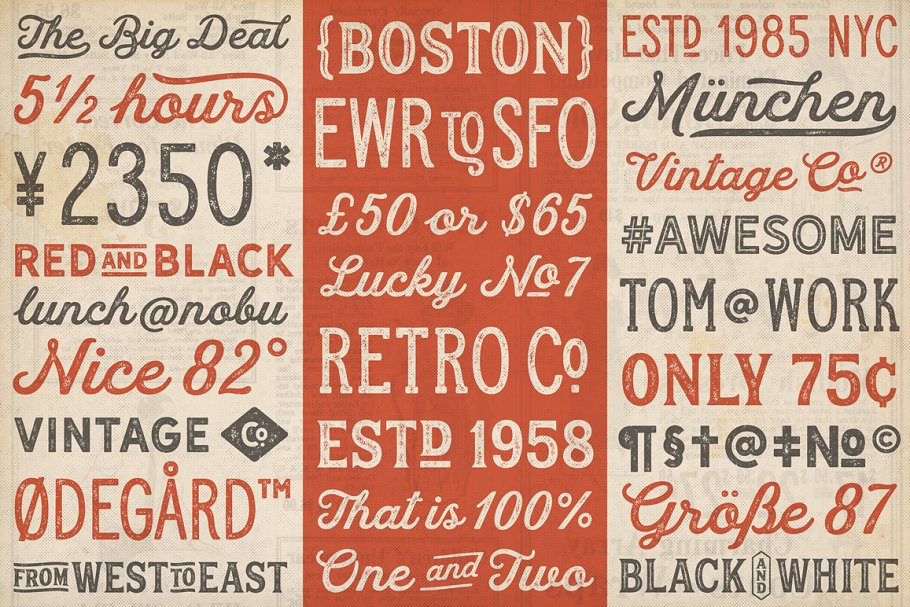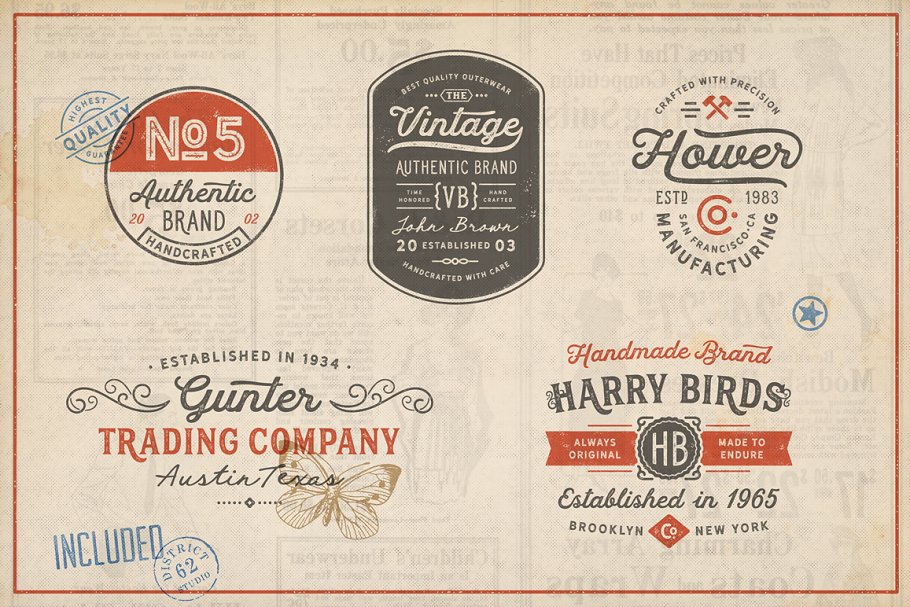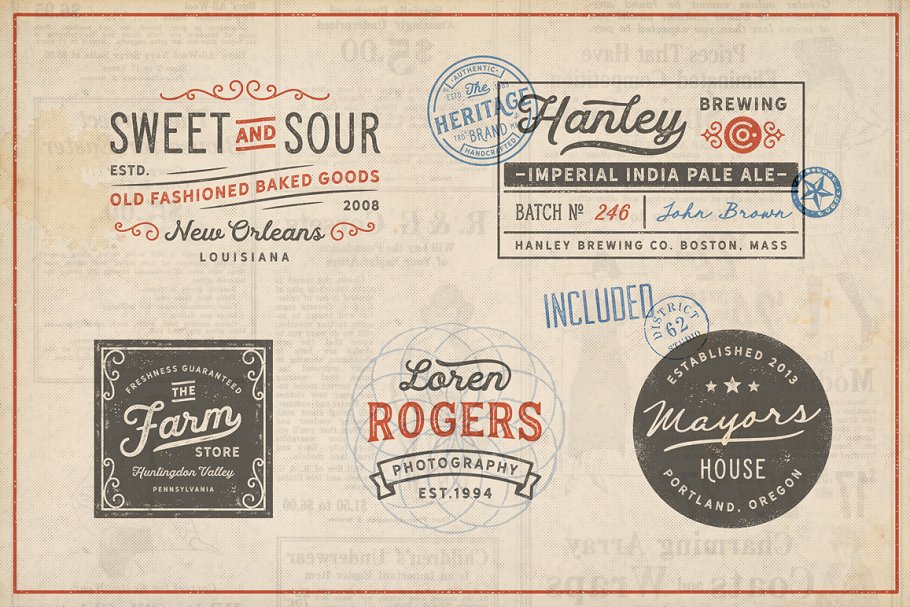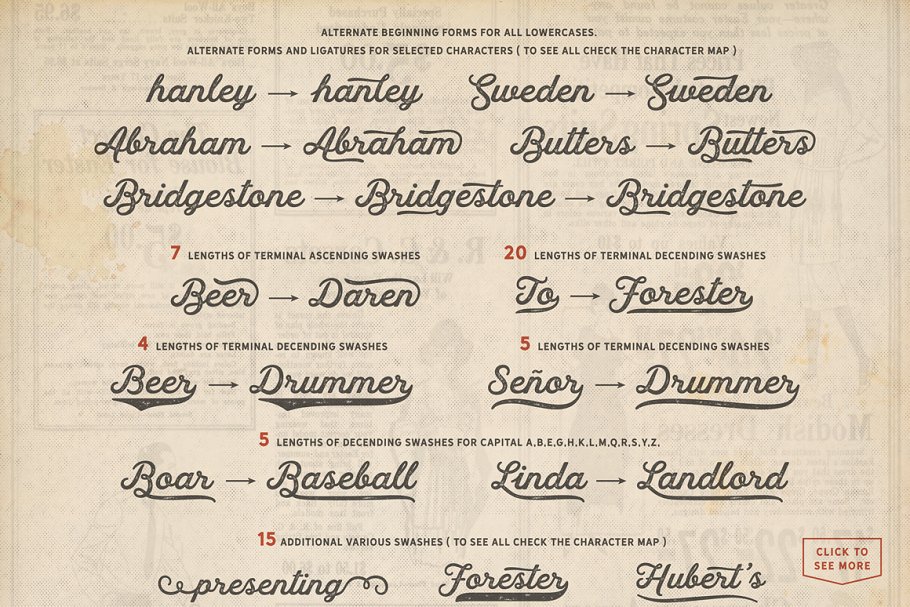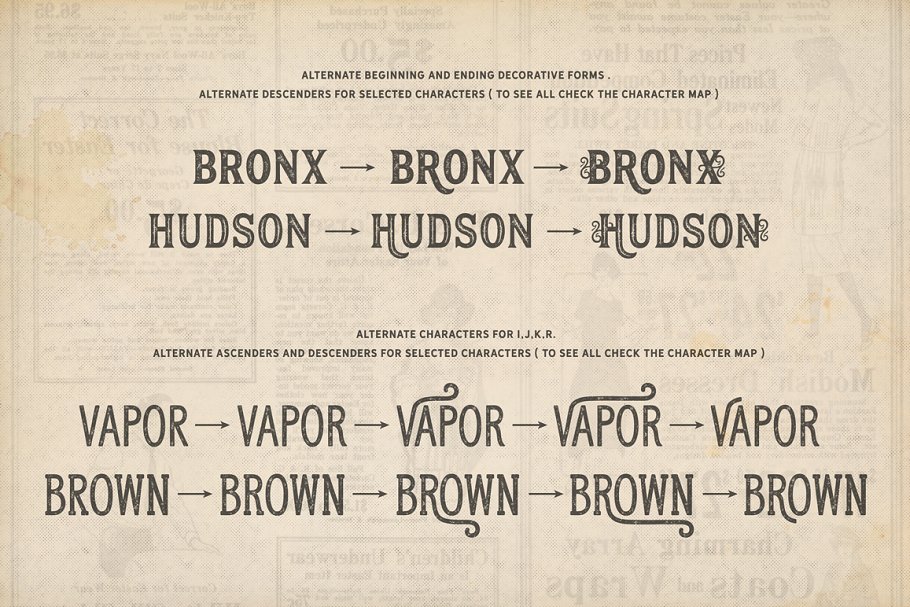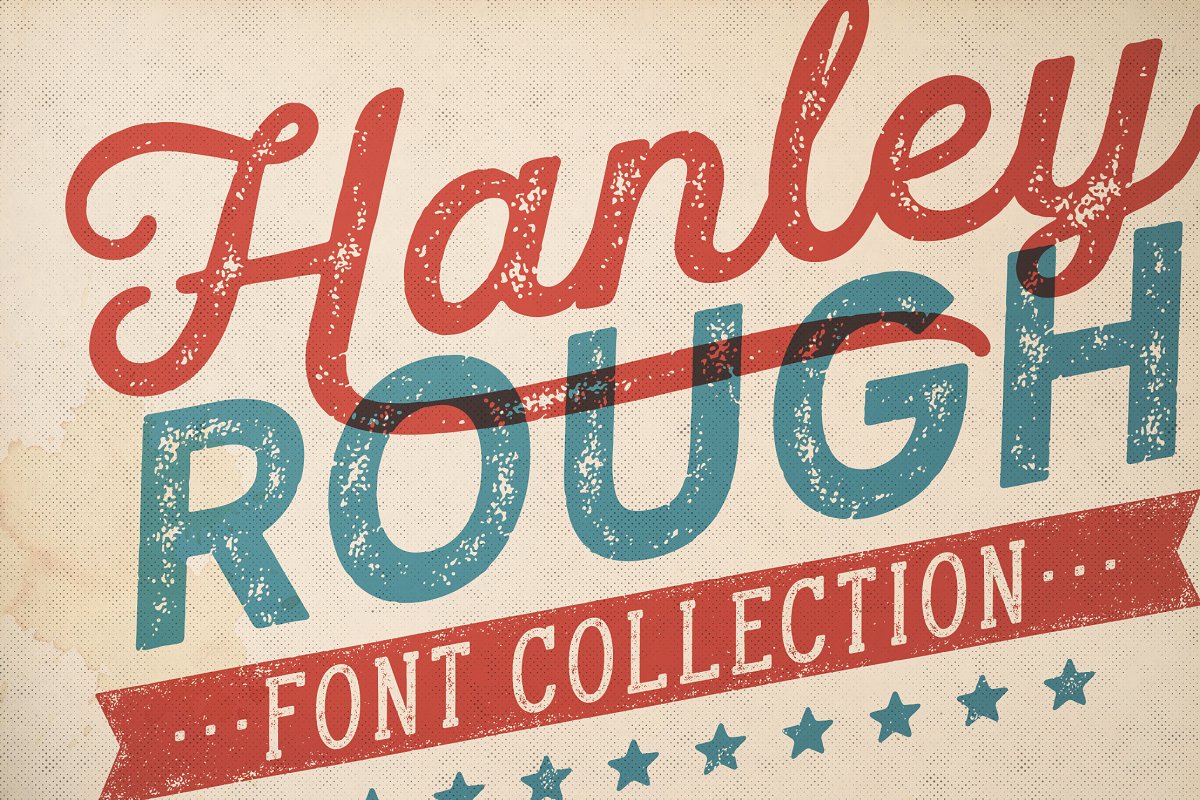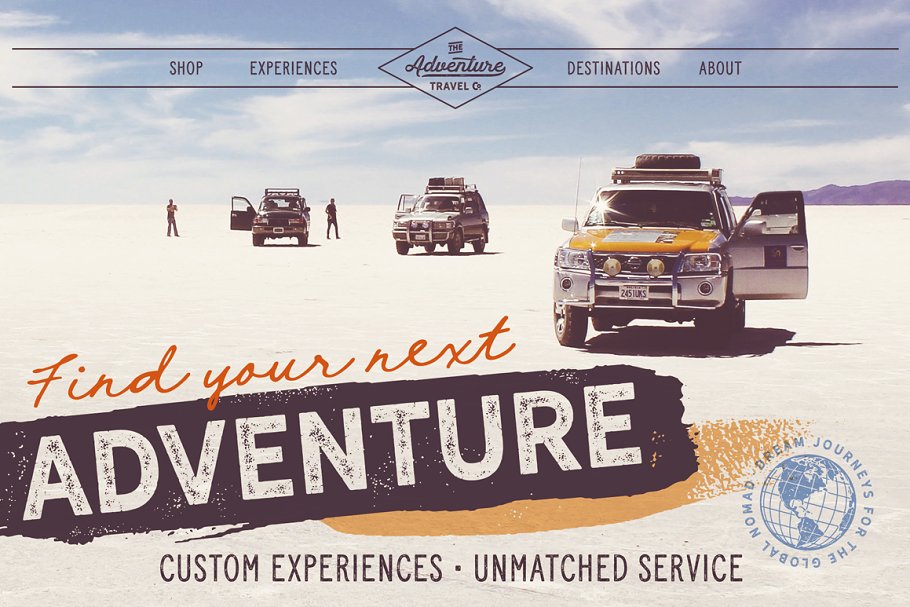
About the Hanley Rough Collection Font
Hanley Rough Font Collection from District 62 is the new letterpress effect version of our popular Hanley Font Collection with a new BONUS Signature font, It consists of 8 fonts and two vector extras files that work extremely well together for an authentic vintage look with a modern vibe, Hanley is extremely versatile, it can look fresh and modern or authentically vintage
We think this group is perfect for logos, restaurant and cafe branding, typographic designs, signage or any project where you need a beautifully textured letterpress typeface, The original, un-textured can be found here: https://crmrkt, com/RQWRyXPLEASE NOTE The photo mockups are NOT included